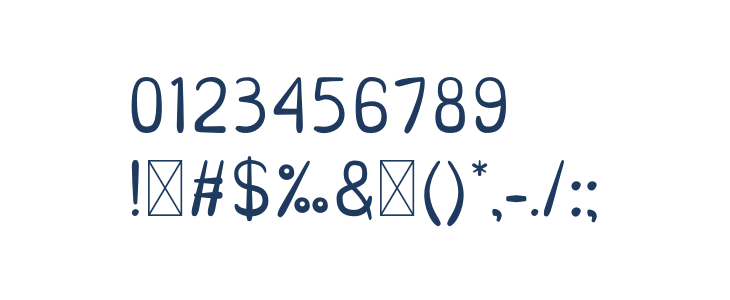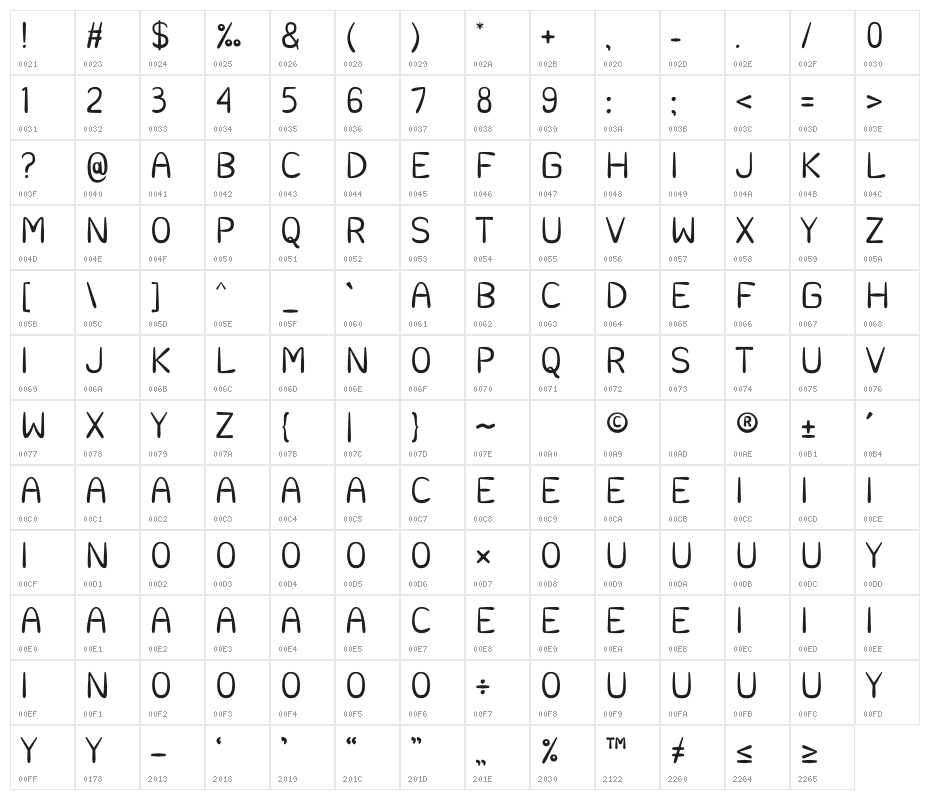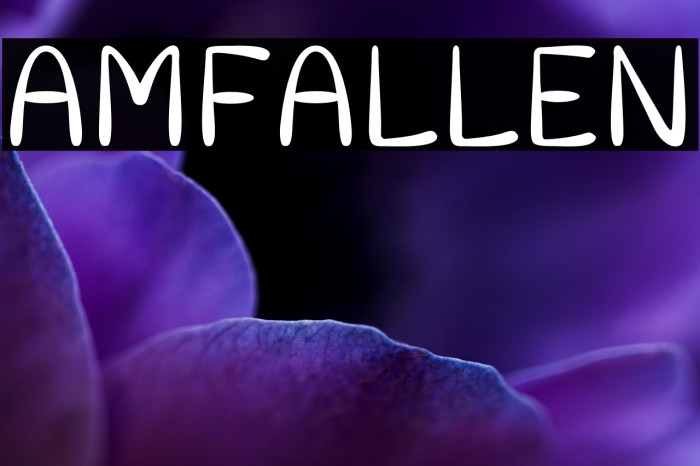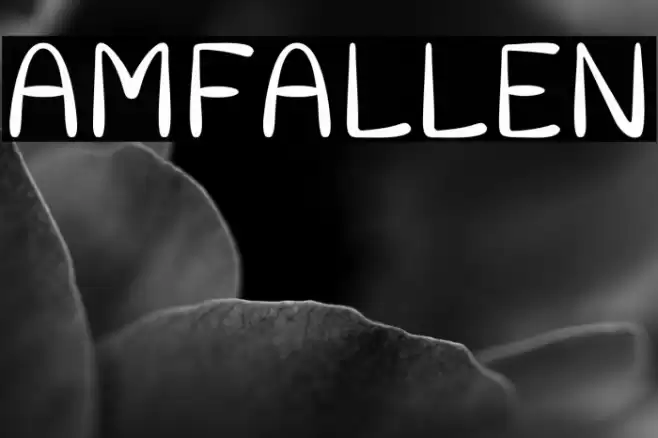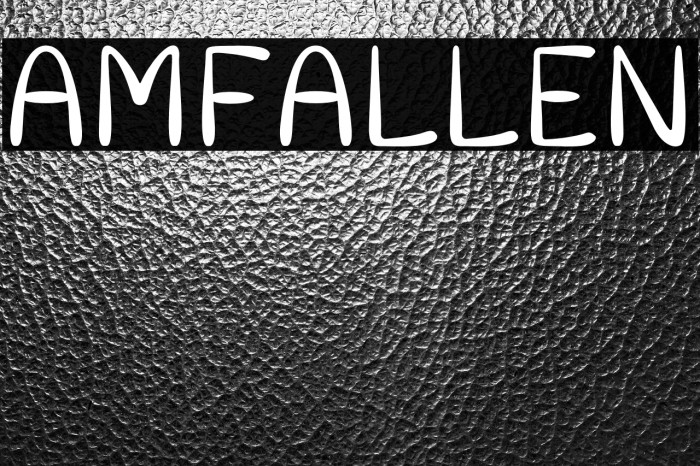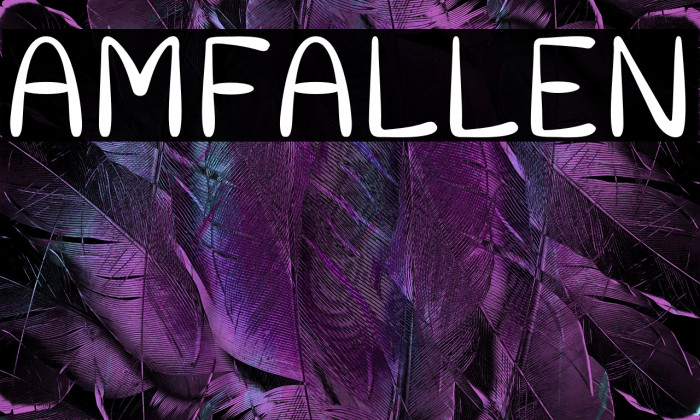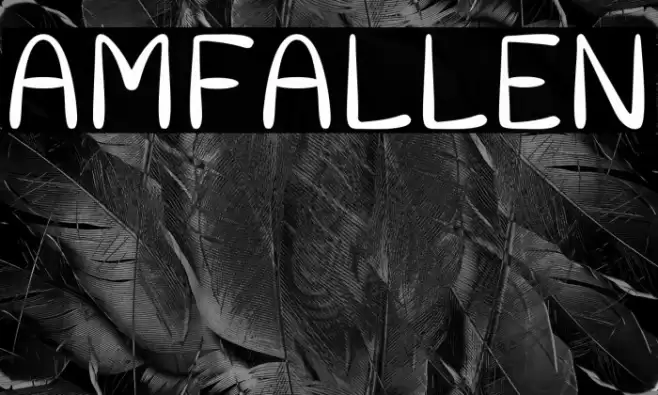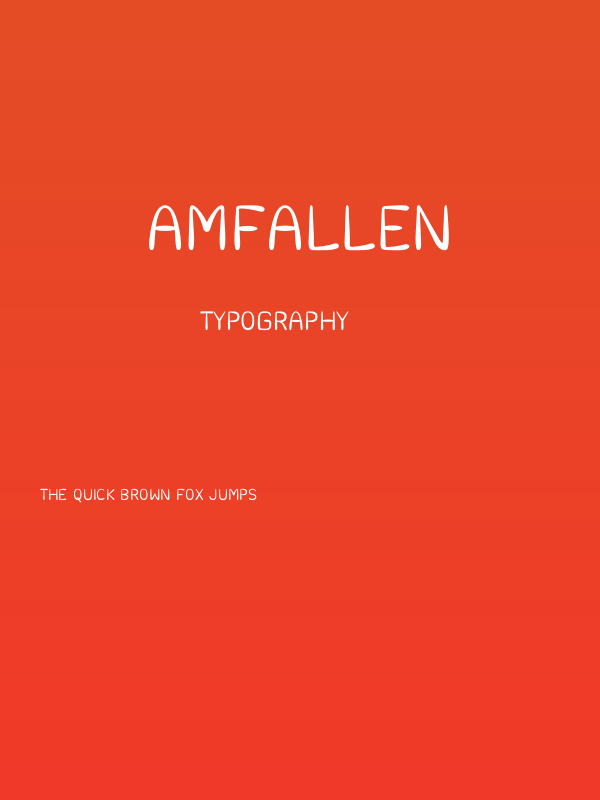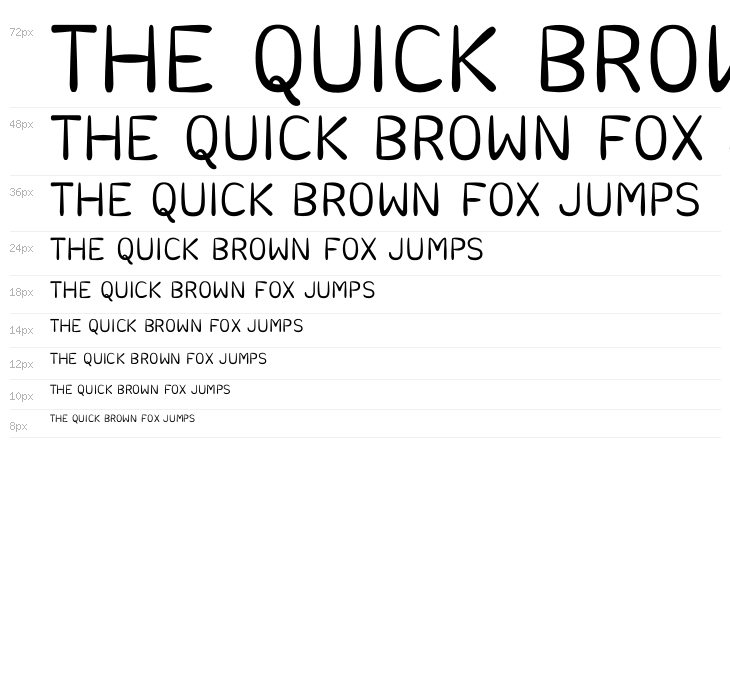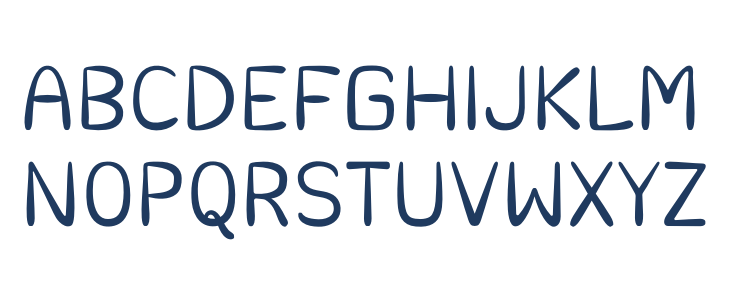
Amfallen Font
Amfallen Description
This font features a playful and casual handwritten style, characterized by its rounded and slightly irregular letterforms. The strokes are consistent in thickness, giving it a uniform appearance while maintaining a friendly and approachable feel. The characters are well-spaced, ensuring readability across various sizes. The numerals and special characters match the overall aesthetic, making it versatile for different uses. Its informal nature makes it ideal for creative projects where a relaxed and personal touch is desired.
Overall StyleCasual
Use CaseHeadlines, Informal text, Creative projects
Proposed ProjectsIdeal for greeting cards, children's books, casual branding, and social media graphics.